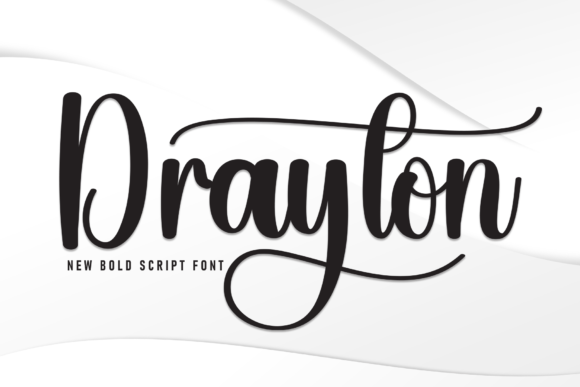
Introducing Drayton Font, the Charming Handcrafted Script with a Story to Tell
In the realm of typography, there exists a font that captures the essence of warmth, approachability, and heartfelt expression - the Drayton Font. Created by the visionary designers at Andikastudio, Drayton is a meticulously crafted handwritten script that transcends mere aesthetics, enchanting the digital canvas with its captivating allure.
Drayton's gentle curves and soft lines embrace the reader in a warm embrace, evoking a sense of intimacy and connection. It is a font that speaks softly yet leaves an unforgettable impression, making it the perfect choice for heartfelt messages, enchanting invitations, and personal touches that resonate with the soul.
Whether you're a creative professional seeking to add a touch of authenticity to your designs or a heartfelt storyteller seeking an expressive medium, Drayton Font is your muse. Its versatility extends beyond genres, seamlessly adapting to a myriad of creative endeavors, from branding and logos to social media graphics and web design.
With Drayton as your creative companion, you'll discover a world of boundless possibilities, transforming your digital creations into captivating experiences. Its inherent charm and effortless elegance will captivate your audience, leaving them spellbound by the eloquence of your visual narratives.
Embark on a creative journey with Drayton Font, where each letter is a stroke of artistry, each word a symphony of emotions, and every design a masterpiece that touches the hearts of your audience. Let Drayton be your ally, igniting your creativity and transforming your visions into reality.